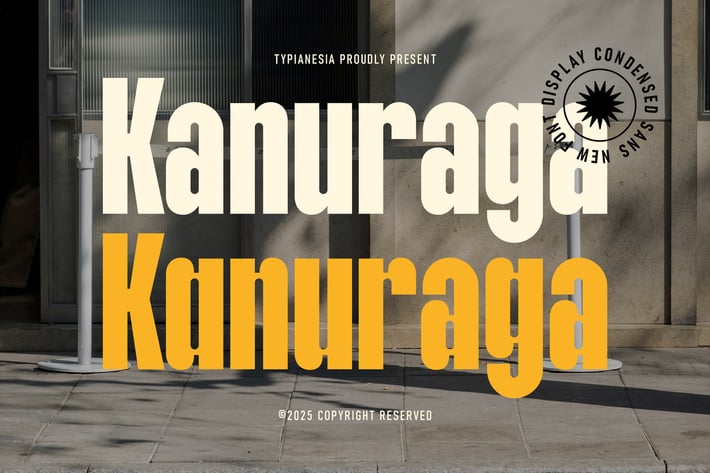
Kanuraga - Condensed Sans Display Font
Kanuraga - Condensed Sans Display Font - Modern Bold Urban Sport Typeface
Kanuraga is a bold and modern condensed sans display font with a strong, structured appearance. Its clean lines and compact design make it perfect for creating a striking and impactful visual presence, such as branding, posters, headlines, advertising, logos, editorial design, packaging, sports themes, urban-style projects, and any project that requires a touch of modern professionalism. Comes with uppercase and lowercase letters, punctuation, numerals, ligatures, alternates, and multilingual support. Its condensed form allows for maximum readability and space efficiency while maintaining a modern feel. Perfect for graphic designers, advertising agencies, and creative professionals, Kanuraga is crafted to enhance bold statements and create eye-catching typography with a contemporary edge.